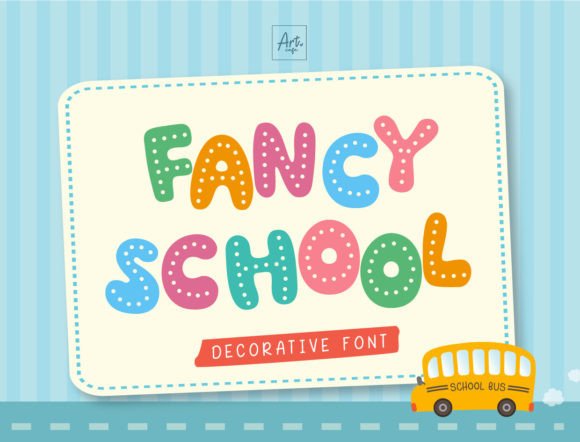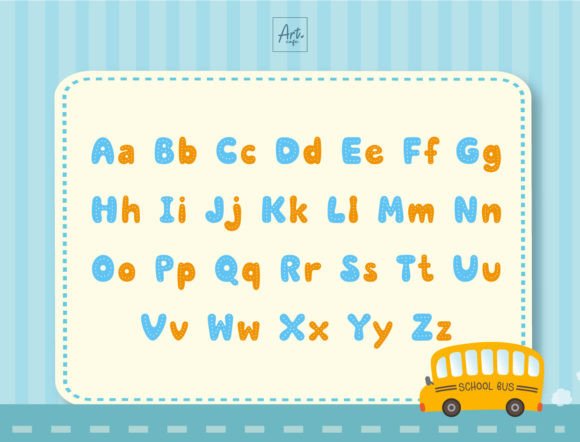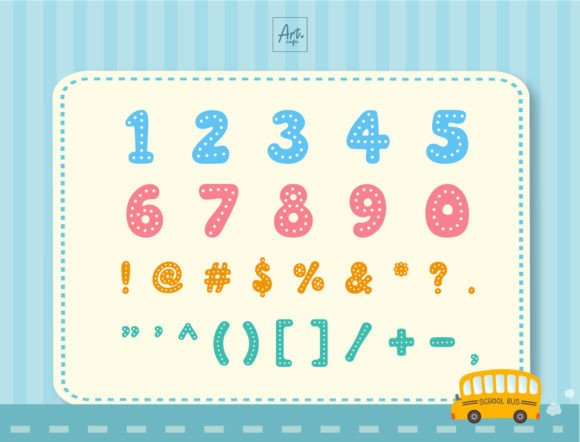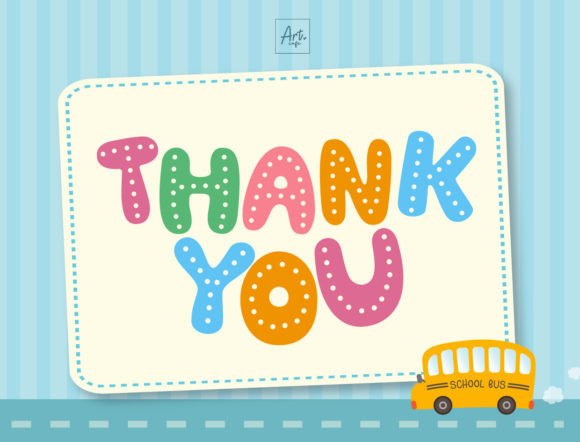
About the Fancy School Font
Experience the unique personality of Fancy School Font, a font designed for impact. Introducing Fancy School, an artistic font adorned with delightful dot lines, produced to command attention in poster headlines. It’s a font that perfectly garnishes your kids’ projects adding a quirky and playful charm. Experience a torrent of cuteness embedded in each character – fantastic, fun, and fabulously adorable. With Fancy School, every word you write indulges in the art of playfulness and light-hearted joy.
Fancy School’s playful energy makes it ideal for children’s books, playful branding for toys or educational products, and eye-catching posters for events targeting a younger audience. It also works well in short headlines or taglines where its quirky charm can add personality. However, its decorative nature makes it unsuitable for body text, long paragraphs, or UI elements where readability is paramount.
For optimal visual harmony, pair Fancy School with a clean sans-serif like Open Sans for body copy or a classic serif like Garamond for a more refined contrast. A simple geometric sans-serif could also provide a strong counterpoint to its playful forms.
The font’s overall personality is undeniably playful and friendly, making it a great choice for projects that need a light-hearted and approachable feel. Avoid using it in contexts requiring seriousness or sophistication.
Fancy School Font Usage Examples
Fancy School Font Example